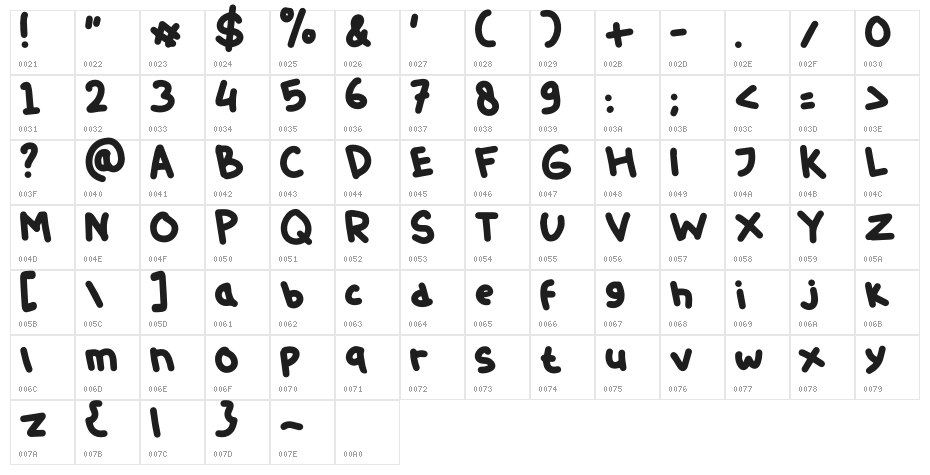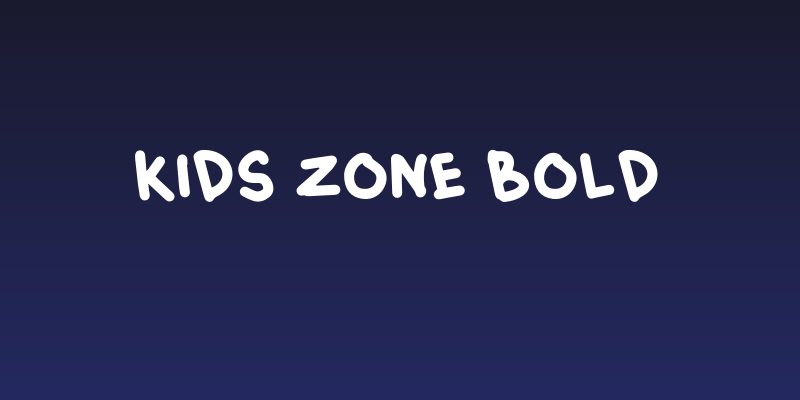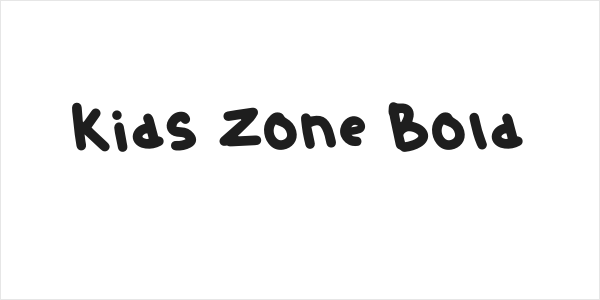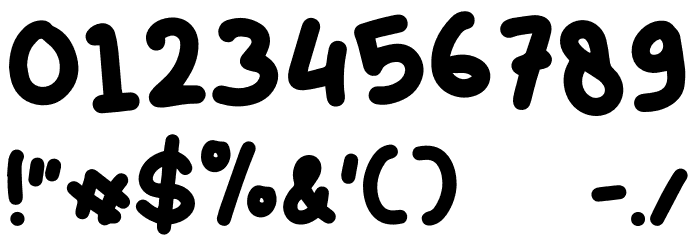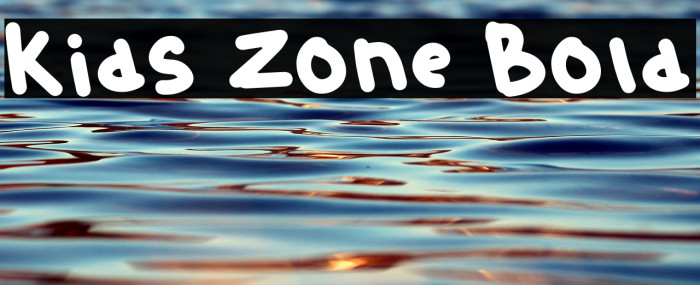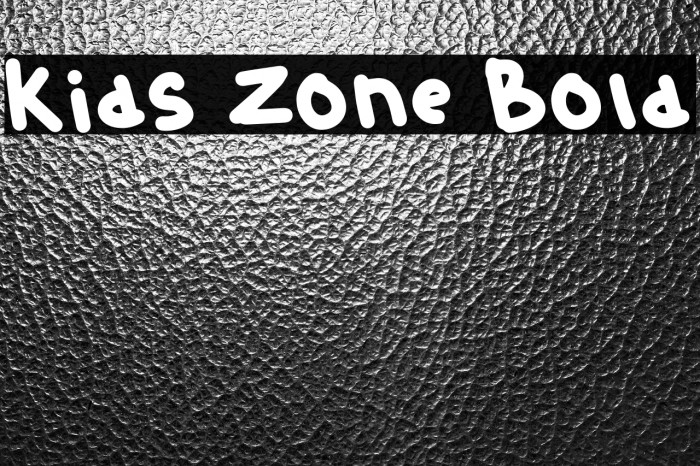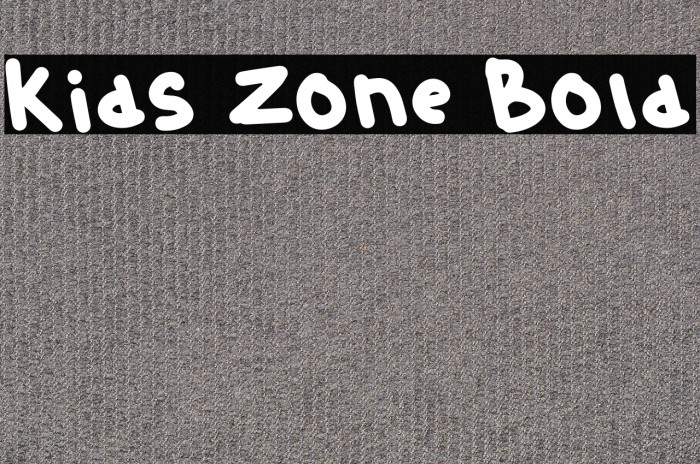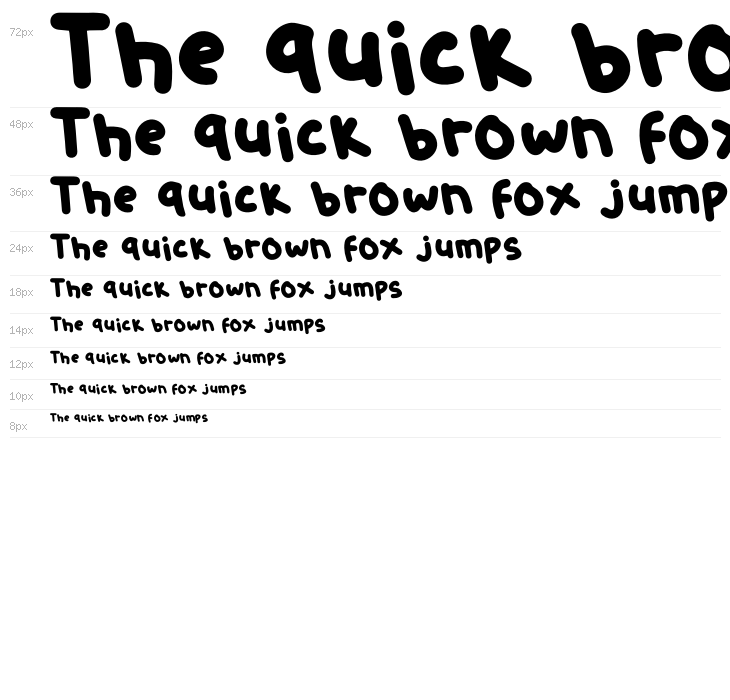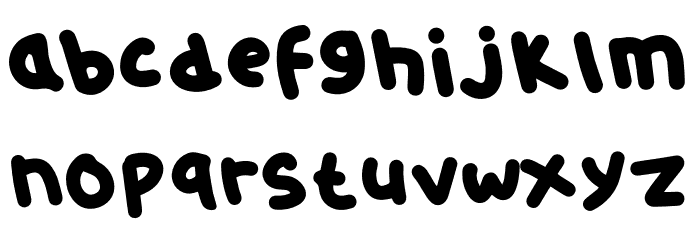
Kids Zone Bold Font
Kids Zone Bold Description
This playful and bold font features rounded, thick strokes that convey a sense of fun and approachability. The letters are slightly irregular, giving them a hand-drawn appearance that is both charming and whimsical. The uppercase and lowercase letters maintain a consistent style, with a slight tilt that adds to the casual feel. The numbers and special characters are equally bold and rounded, ensuring readability and consistency throughout. This font is perfect for projects aimed at children or for any design that requires a touch of lightheartedness and creativity.
| Use Case | Headlines, Logos, Children's materials |
| Proposed Projects | Ideal for children's books, educational materials, playful branding, and toy packaging. |